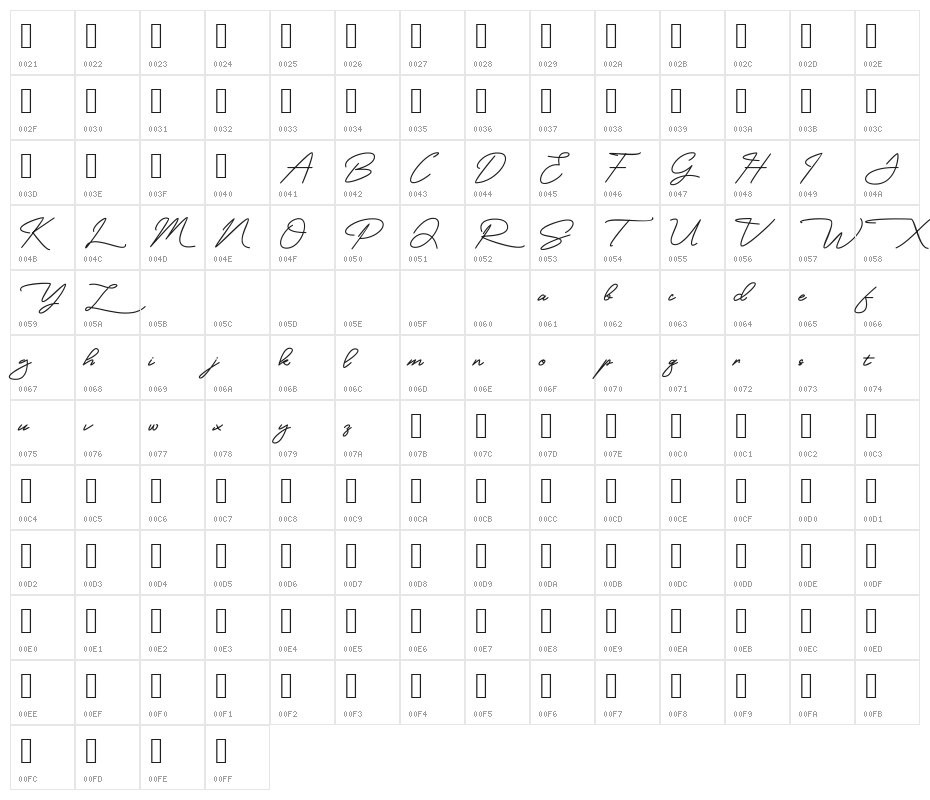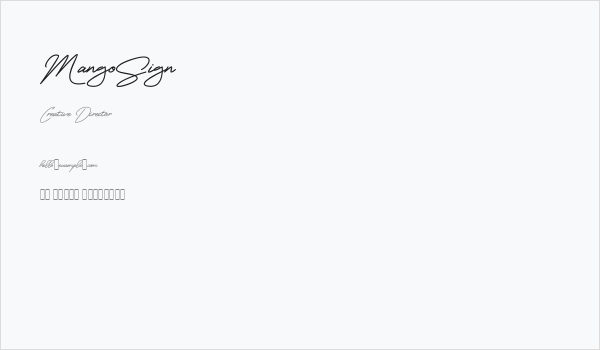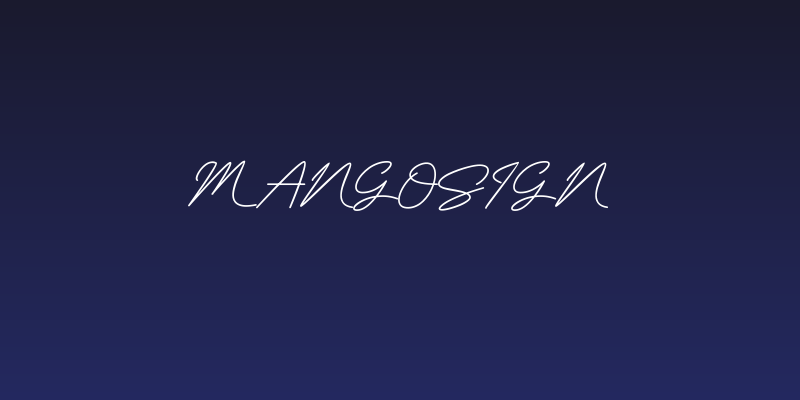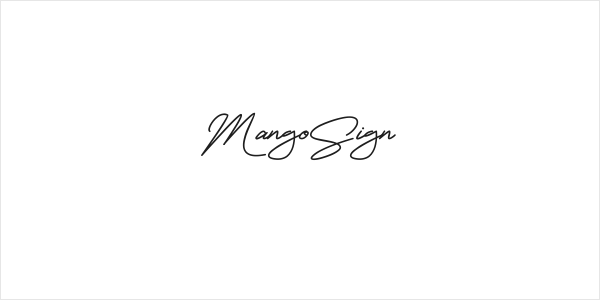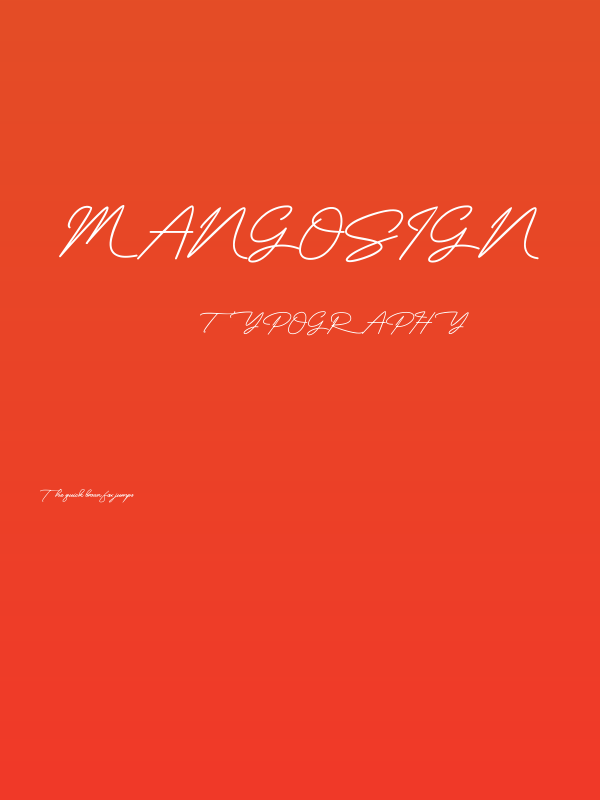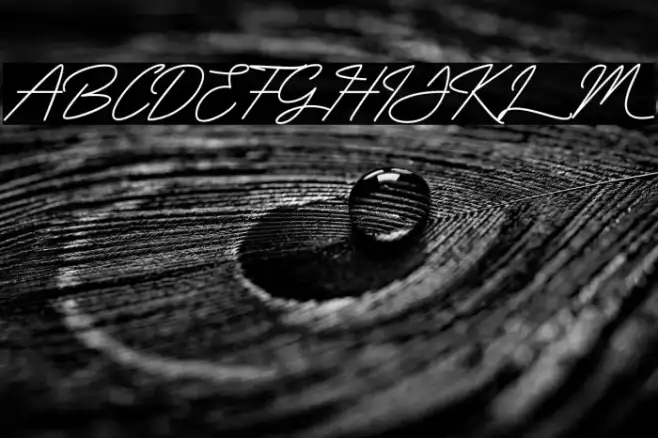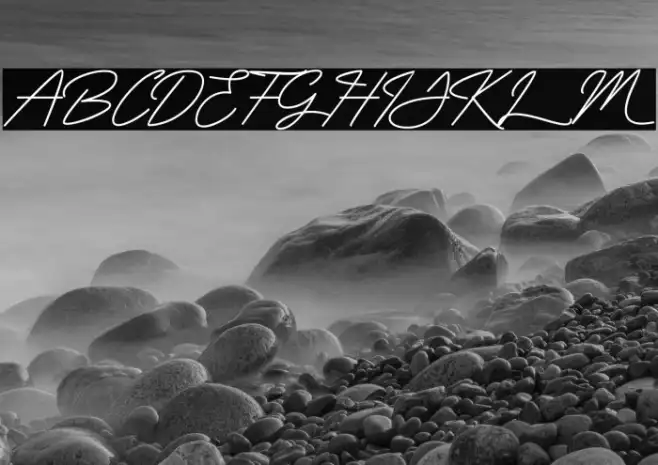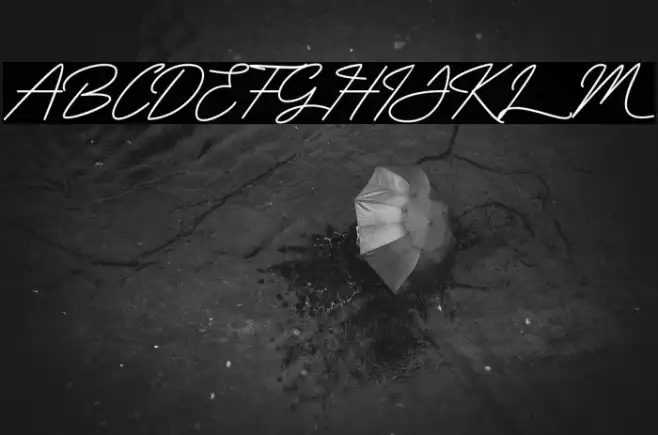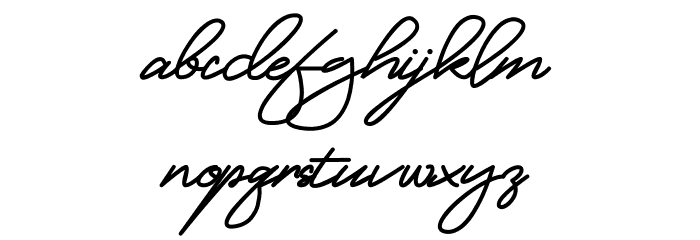
MangoSign Font
MangoSign Description
This font features an elegant, flowing script style that mimics natural handwriting. The uppercase letters are elongated and graceful, with sweeping curves and loops that give a sense of fluidity and motion. The lowercase letters maintain a consistent style, with a slightly more compact form, yet still retaining the same fluidity and elegance. The font is characterized by its thin, delicate strokes, which add to its sophisticated and refined appearance. It is well-suited for projects that require a personal touch or a sense of elegance and sophistication.
| Overall Style | Elegant, Sophisticated |
| Proposed Projects | Ideal for wedding invitations, greeting cards, personal branding, and elegant logo designs. |